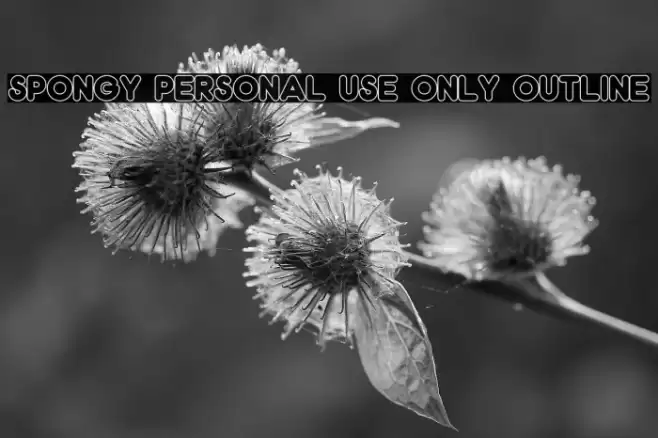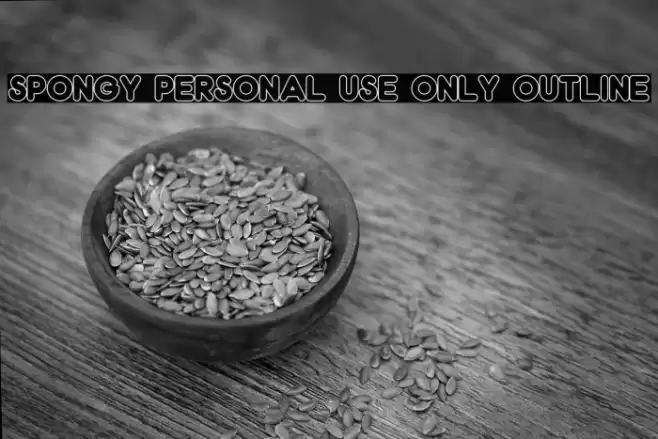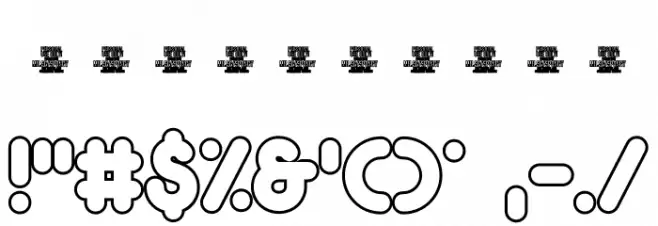
Spongy PERSONAL USE ONLY Outline Font
Spongy PERSONAL USE ONLY Outline Description
This font features a playful and bold outline style, characterized by its thick, rounded edges and hollow interiors. The letters are uniformly shaped with a consistent stroke width, giving it a cohesive and modern appearance. The uppercase and lowercase letters maintain a similar structure, enhancing readability while adding a touch of whimsy. The numerals and special characters follow the same design principles, ensuring a harmonious look across all elements. This font's unique outline design makes it stand out, suitable for creative and eye-catching projects.
A playful, bold outline font with rounded edges and consistent stroke width from Regular fonts.